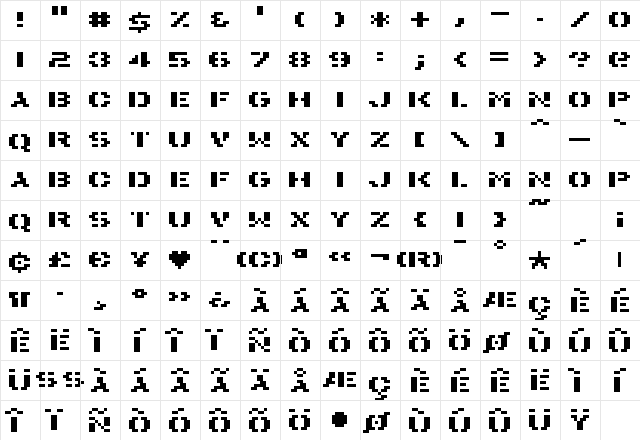
PonyBold Regular
Design Context for PonyBold Typeface
PonyBold takes a measured approach to typography — its balanced proportions and neutral character make it a reliable workhorse for both digital and print work. Its bold stroke weight gives it real presence on the page.